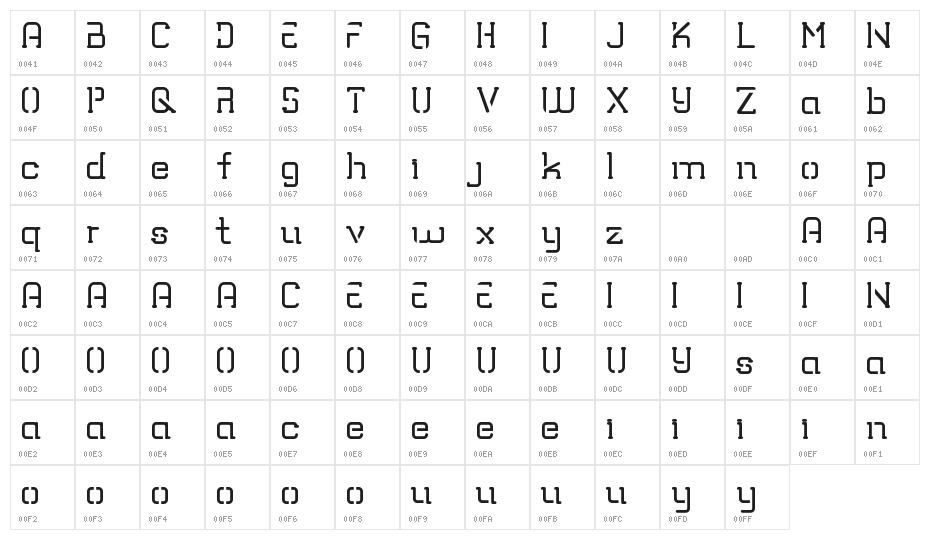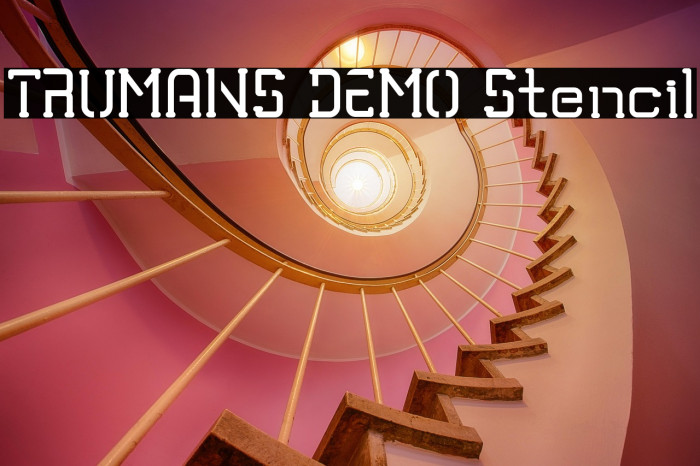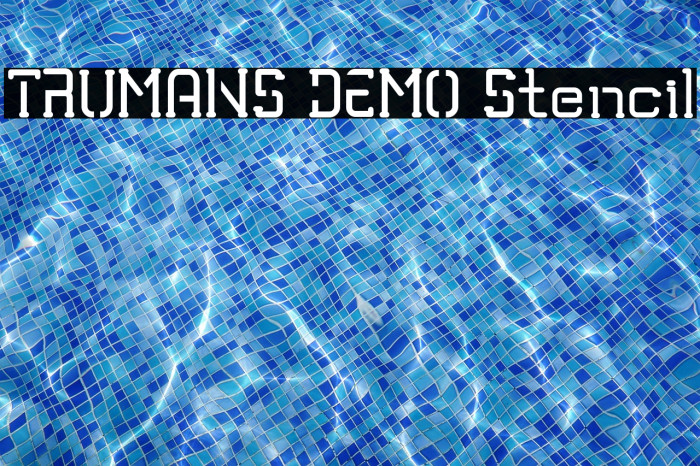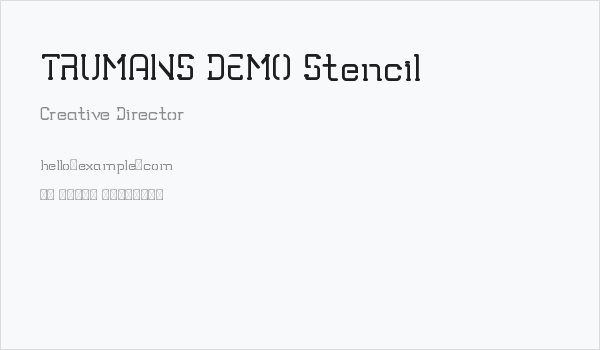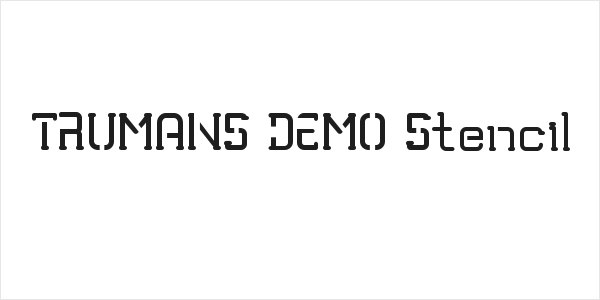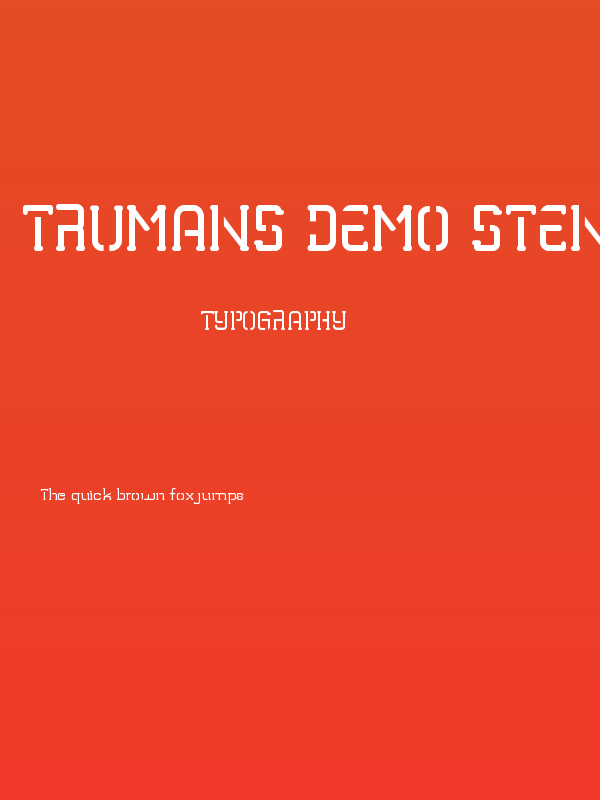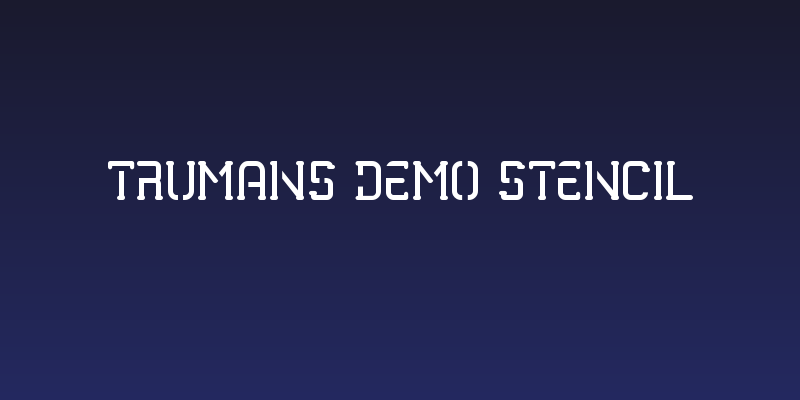
TRUMANS DEMO Stencil Font
TRUMANS DEMO Stencil Description
This stencil font features a bold and industrial design, characterized by its distinct cut-out sections that give it a mechanical and utilitarian appearance. The uppercase and lowercase letters maintain a consistent geometric structure, with sharp angles and straight lines that enhance its modern aesthetic. The font's uniformity and clarity make it highly legible, even at smaller sizes. The numerals and special characters follow the same design principles, ensuring a cohesive look across all elements. Its unique style is both eye-catching and functional, making it suitable for a variety of design applications.
| Use Case | Headlines, Logos, Signage |
| Proposed Projects | Ideal for branding, signage, posters, and any project requiring a modern, industrial look. |